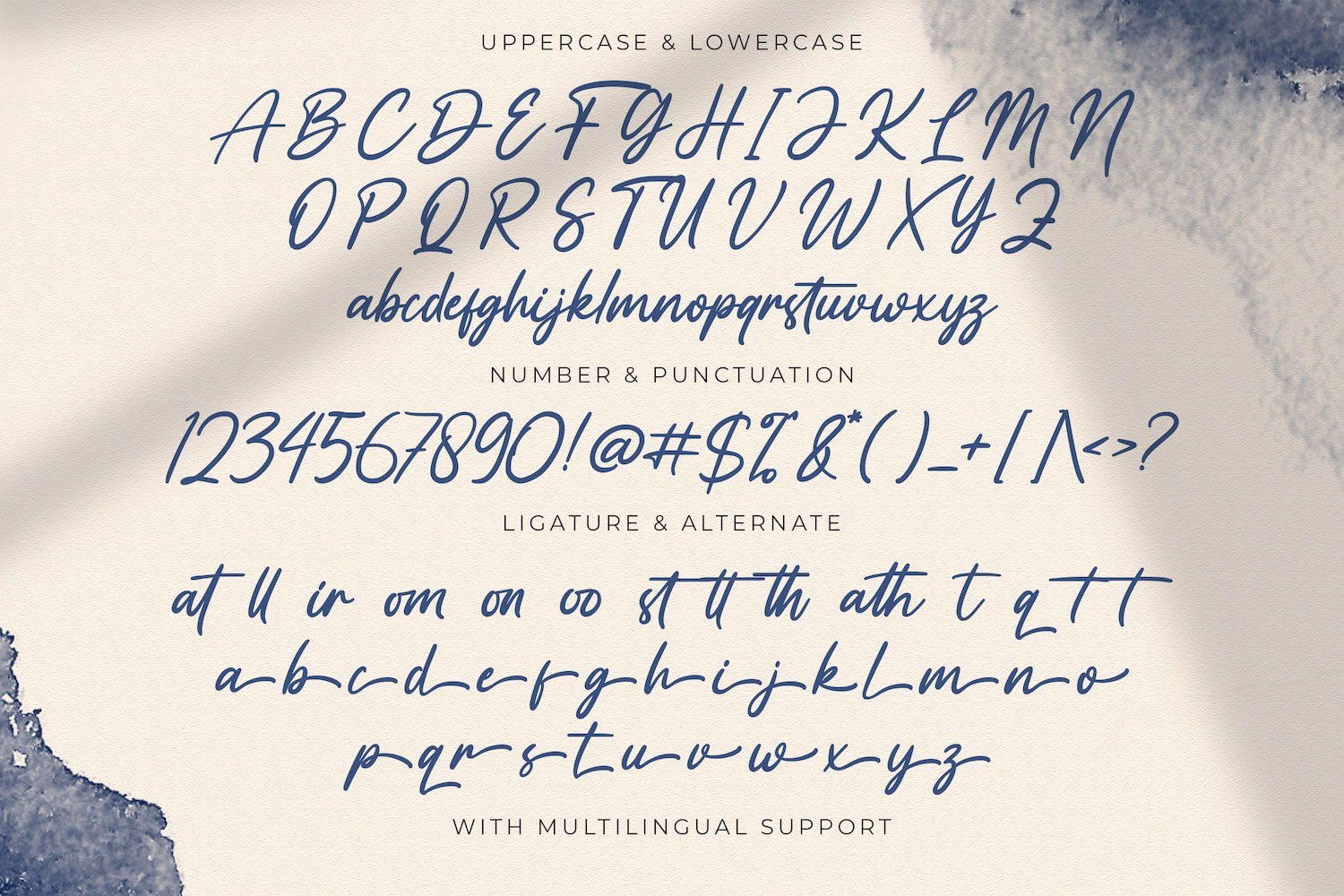
About Vaizonlly – Bold Script Font
Introducing Vaizonlly – Bold Script Font Vaizonlly is a flowing handwritten font, described by an elegant touch, perfect for your favorite projects. Fall in love with its incredibly distinct and timeless style and use it to create spectacular designs! FEATURES – TTF/OTF/WOFF/WOFF2 – Stylistic Alternates – Ligatures – PUA Encode – Uppercase and Lowercase letters – Numbering and Punctuations – Multilingual Support – Works on PC or Mac – Simple Installation – Support Adobe Illustrator, Adobe Photoshop, Adobe InDesign, also works on Microsoft Word Hope you Like it. Thanks.